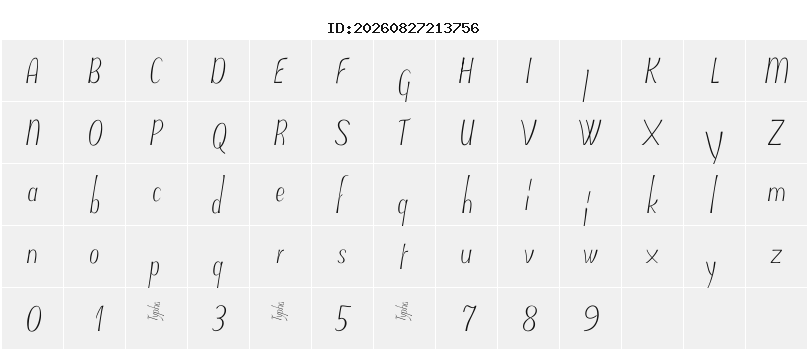
• Font Name: Typha Latifolia Demo
• Full Font Name: Typha Latifolia Demo-Medium
About Typha Latifolia Demo.ttf
Typha Latifolia Demo.ttf is a modern, elegant sans-serif font designed for ultimate readability and visual harmony. Perfect for branding, headlines, web design, and print materials.